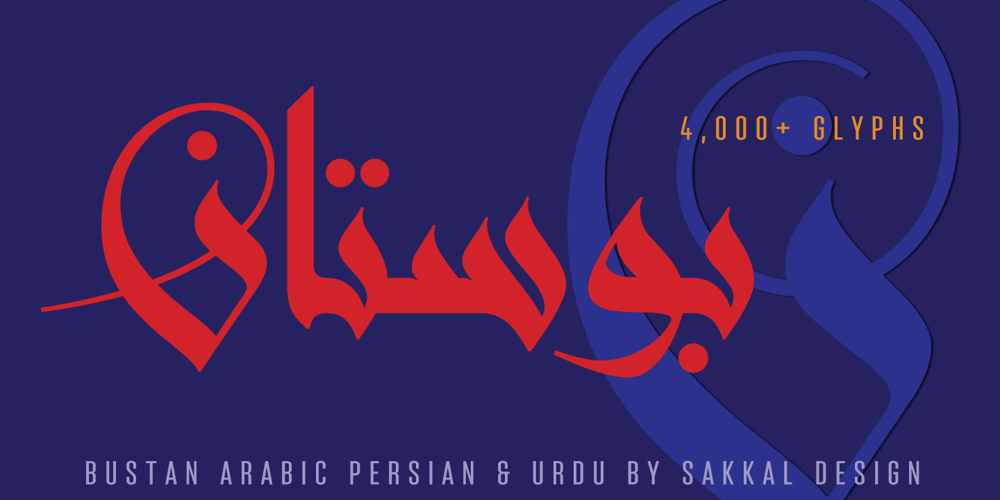
Bustan Font Family was designed by Mamoun Sakkal, Jamal Bostan and published by Sakkal Design. Bustan contains 1 styles and family package options. Bustan is a new Arabic display typeface inspired by Kairawani Kufic and cursive Sunbuli, notable for its compact compositions. Designed by Jamal Bustan and developed by Sakkal Design, Bustan has updated proportions and details, and is distinguished by its traditional serenity, modern aesthetics, and a rich set of letter variants. You can see the full set of font features at http://www.sakkal.com/type/bustan_brochure Bustan is ideal for a variety of applications including logos and monograms, titles of newspapers and specialty magazines, and for book covers. It can be used also for jewelery design, garments and T-shirts, product packaging and greeting cards among other uses.